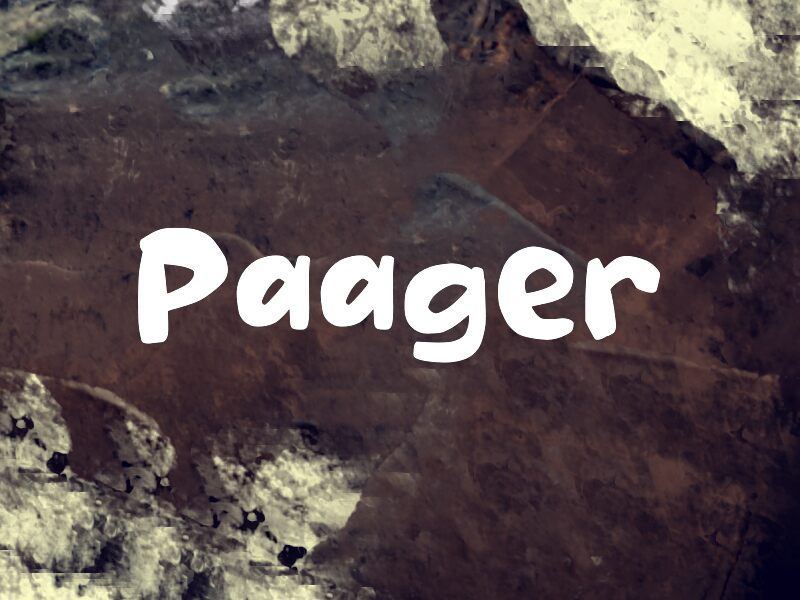
Paager font by wep presents a whimsical and lighthearted style characterized by friendly and approachable shapes. This font shines with its casual and informal look, designed to capture a playful essence without being over the top. Its contemporary structure is rounded and soft, conveying a laid-back vibe that feels modern and stylish.
Use Paager in projects that aim to emphasize a youthful energy and relaxed atmosphere. As an informal font, it's ideal for children's books, educational materials, toy packaging, family-oriented branding, casual advertising, promotional flyers, playful greeting cards, event invitations, website headlines, and social media content.